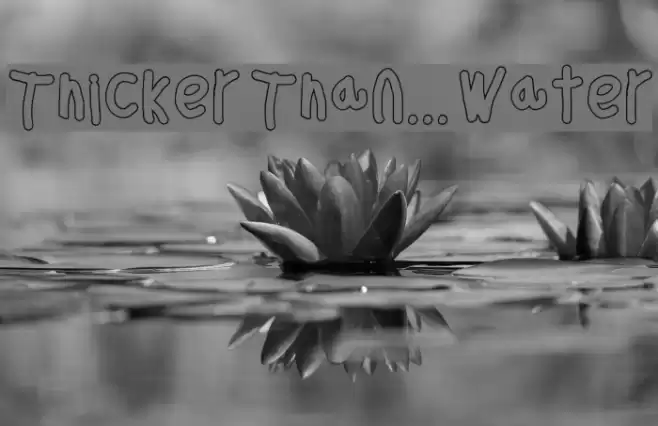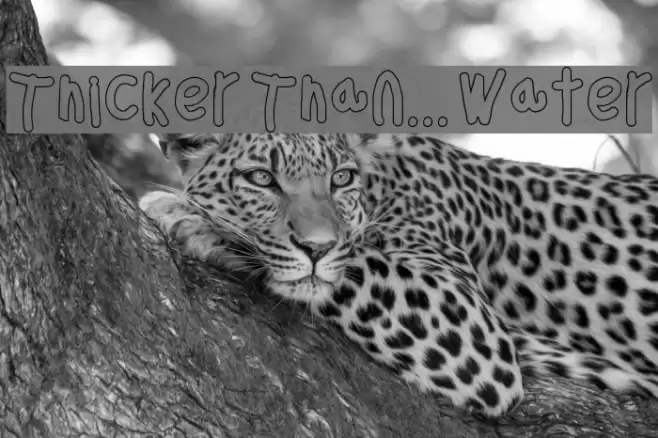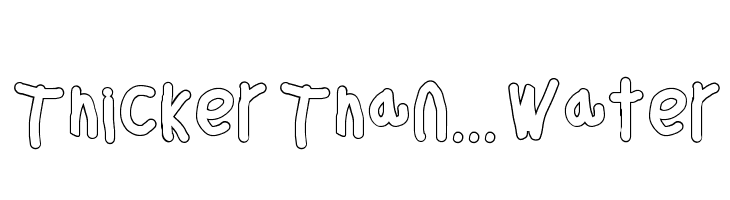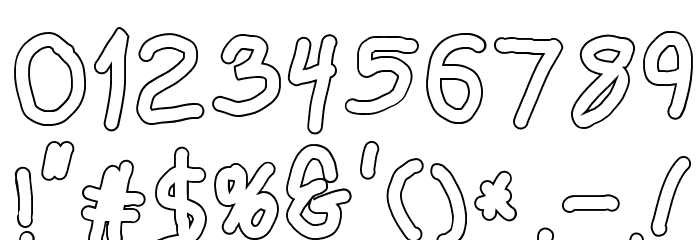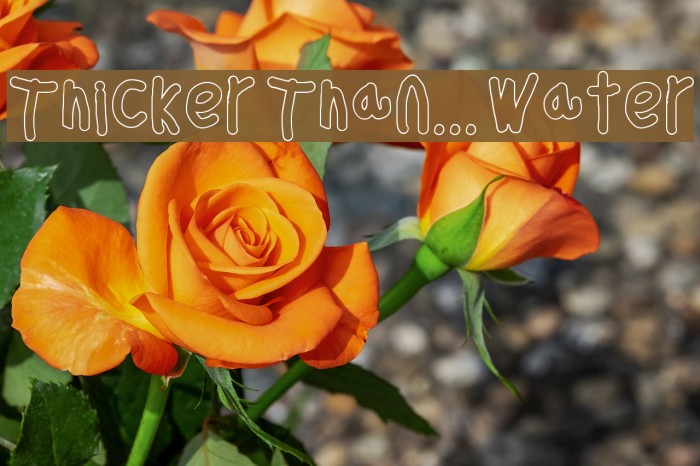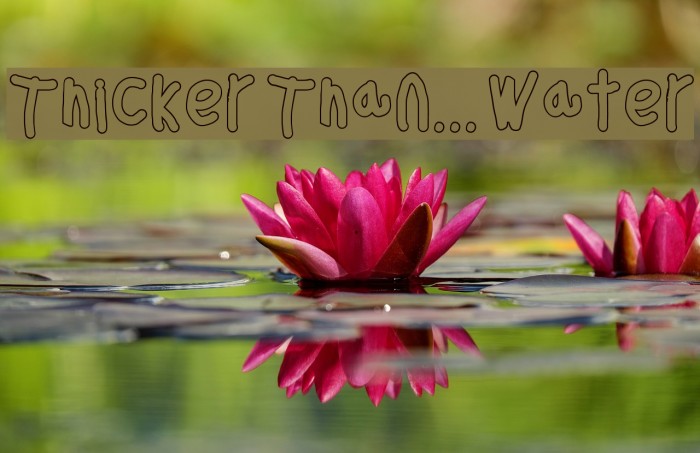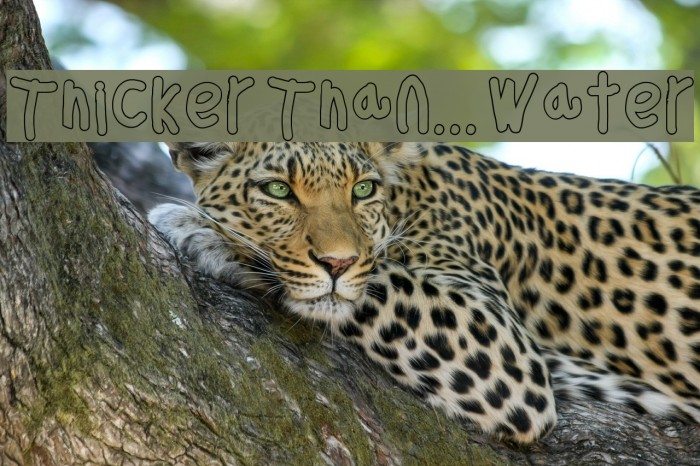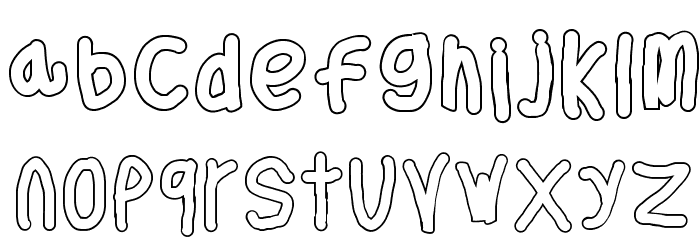
Thicker Than... Water Font
Thicker Than... Water Description
This playful and bold font features a hand-drawn, outlined style that gives it a unique and casual appearance. The characters are slightly irregular, adding a whimsical and informal touch. The uppercase and lowercase letters maintain a consistent thickness, with rounded edges that enhance its friendly and approachable feel. The numbers and special characters follow the same design, ensuring uniformity across the font. This style is particularly eye-catching and can be used to create a fun and engaging visual impact.
A playful, hand-drawn outlined font with a whimsical and casual style from Handwritten fonts.
- Proposed Projects: Ideal for children's books, comic strips, playful branding, and creative posters.
- Overall Style: Playful